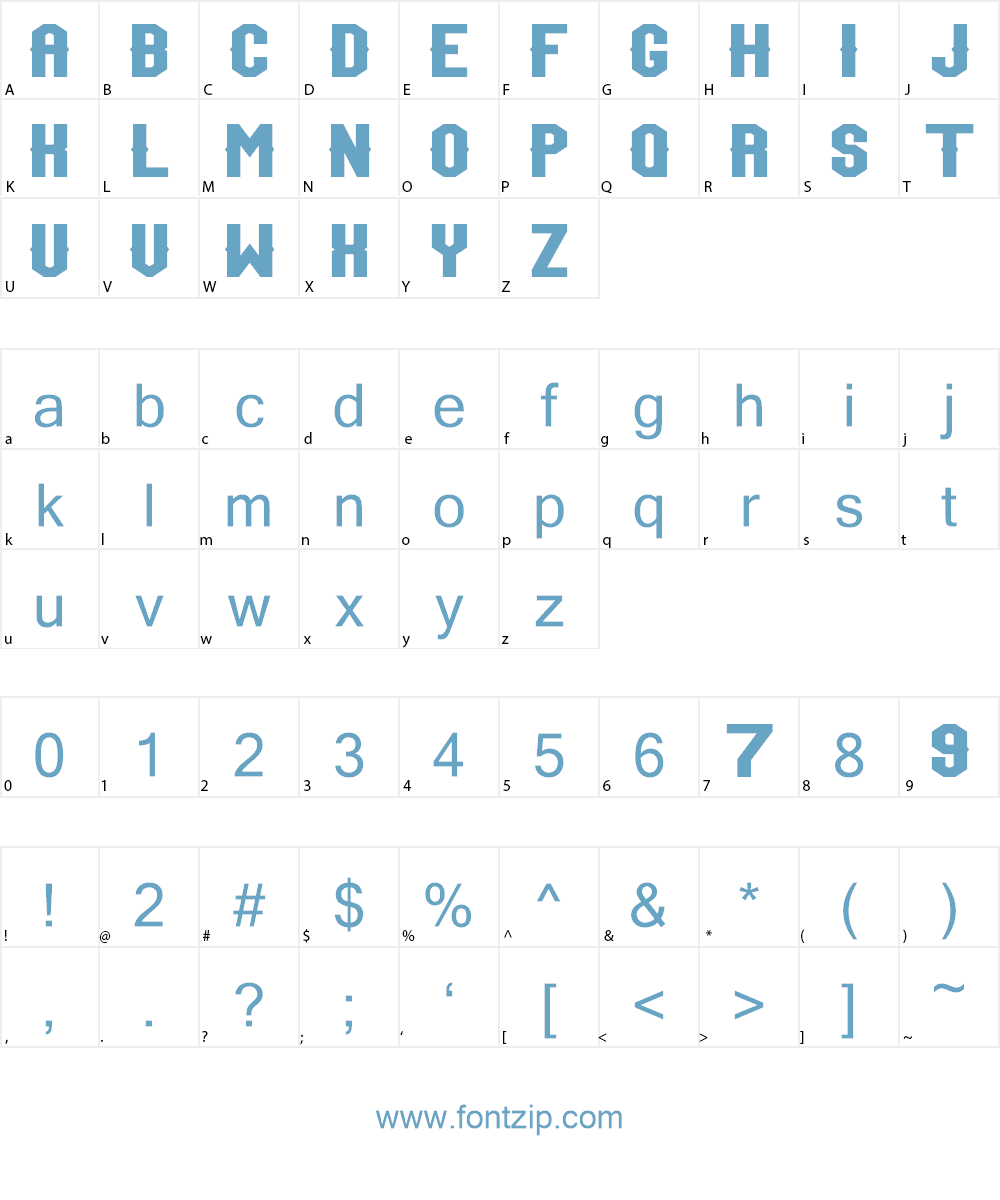
Team Jersey 97 is a sans serif varsity slab with a small selection of mid-height spurs. Full version features numbers and European special characters.